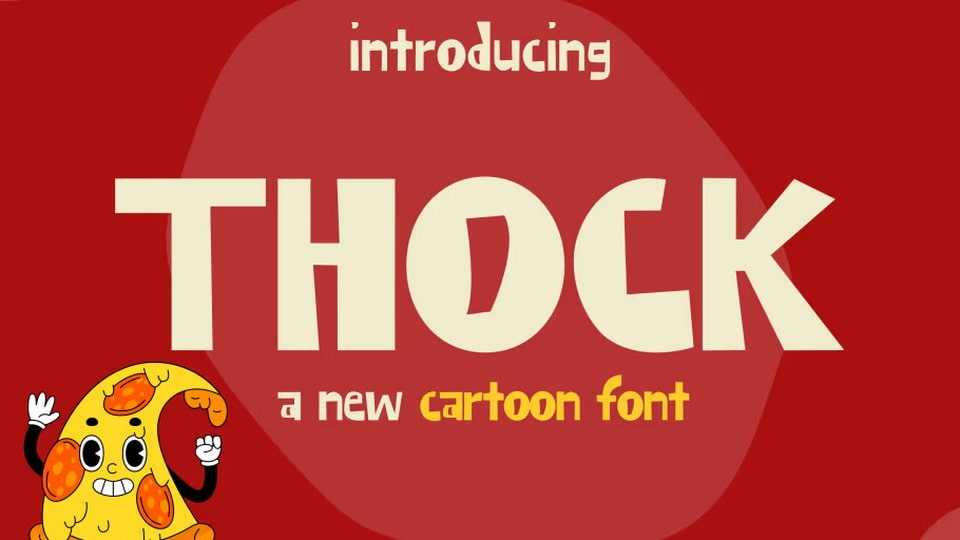
Download Thock font, a display typeface characterized by its bold, mechanical structure and retro-tech aesthetic. It combines thick strokes, geometric proportions, and a monospaced feel.
Designer: alessia